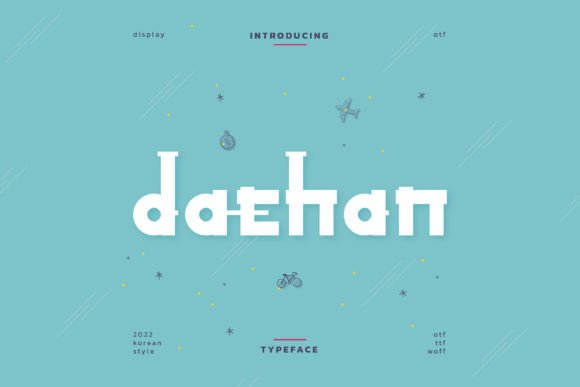
Step into the whimsical world of Daehan, the captivating display font that will ignite your designs with a spark of enchantment. Created by the imaginative minds at inferno.type3, Daehan is not just a typeface – it's a conduit of boundless creativity, ready to transform your projects into masterpieces.
With its playful curves and enchanting glyphs, Daehan dances across your screen, infusing every letter with a touch of whimsy and wonder. It's the perfect font for adding a personal flair to your wedding invitations, infusing thank you cards with heartfelt warmth, and creating greeting cards that burst with joy. Daehan's versatility extends to the world of logos, where it effortlessly elevates your brand identity to new heights.
ButDaehan's magic goes beyond mere aesthetics. Its meticulously crafted characters exude a warmth and charm that instantly captivates the hearts of your audience. Whether you're designing a poster to announce a special event or crafting a website to showcase your creative portfolio, Daehan has the power to turn ordinary words into an extraordinary visual feast.